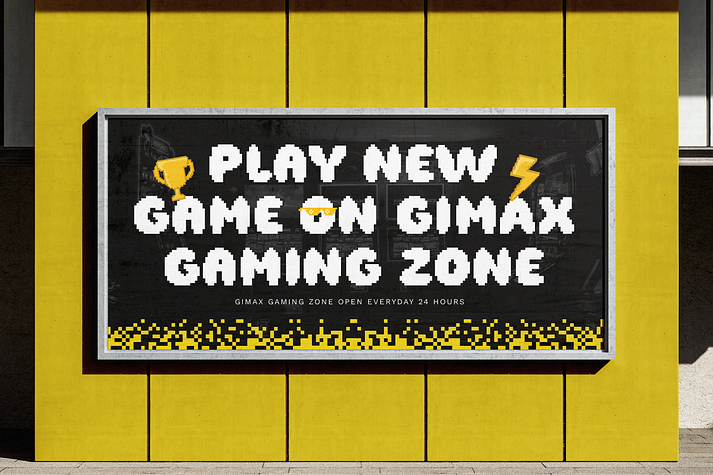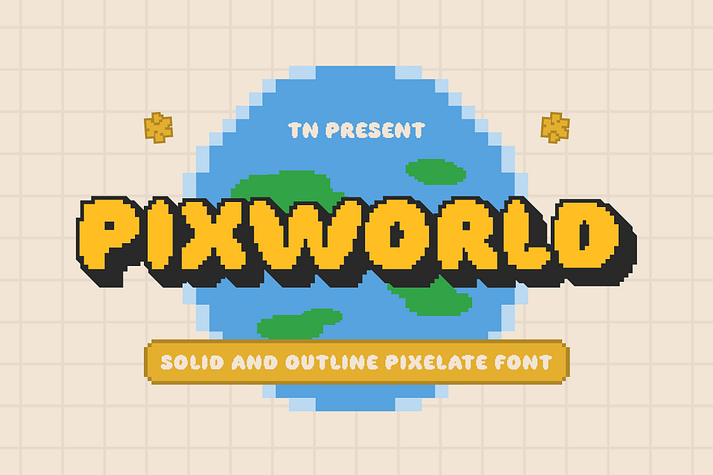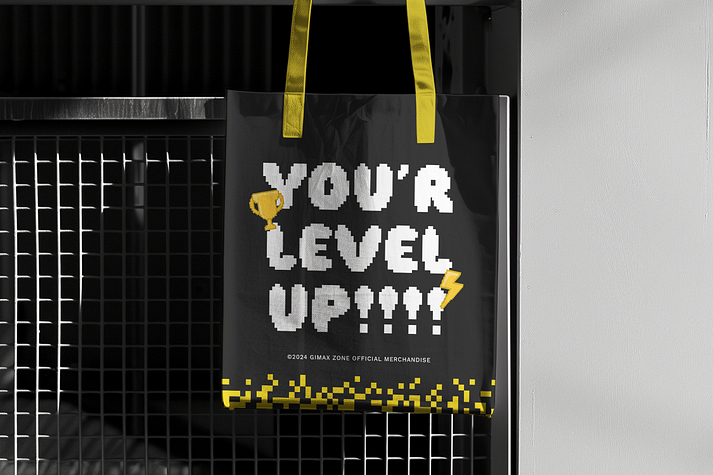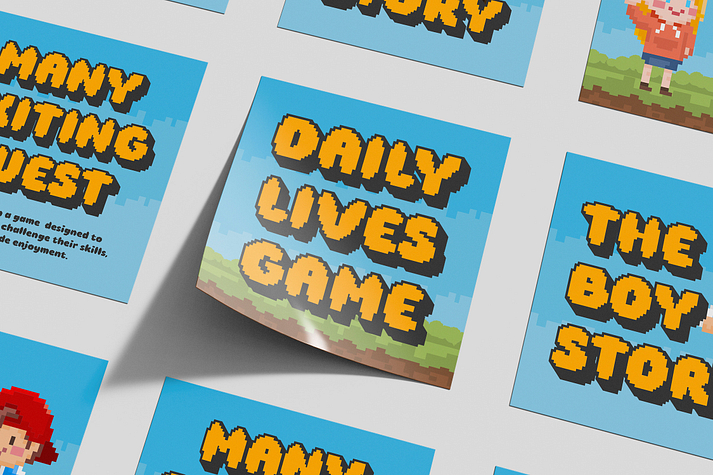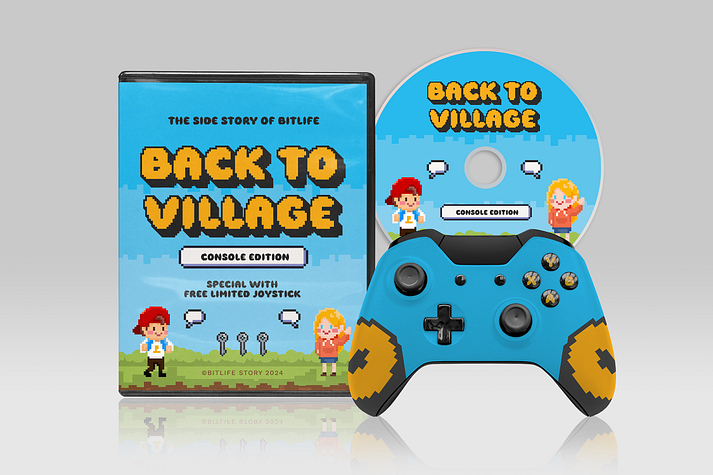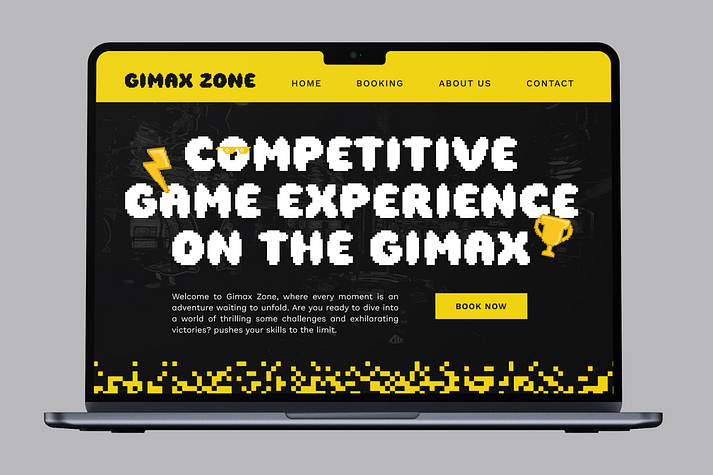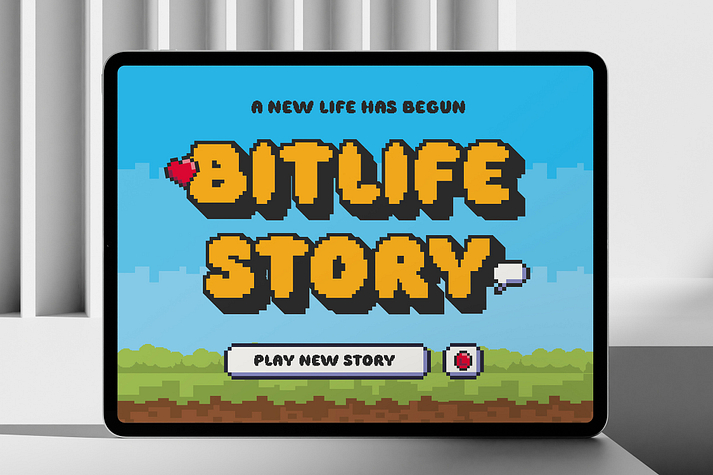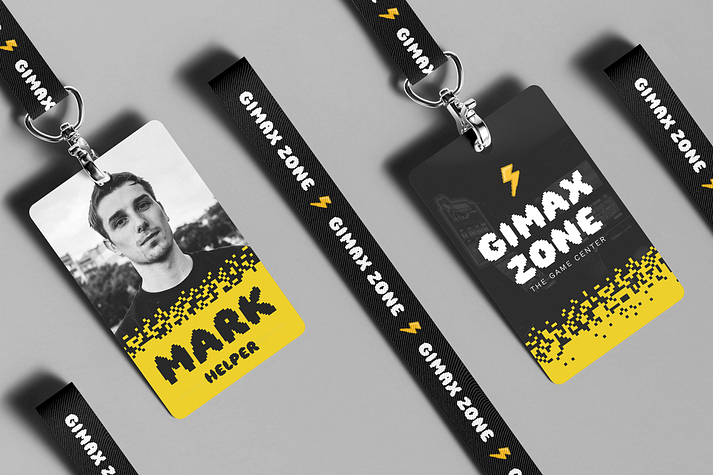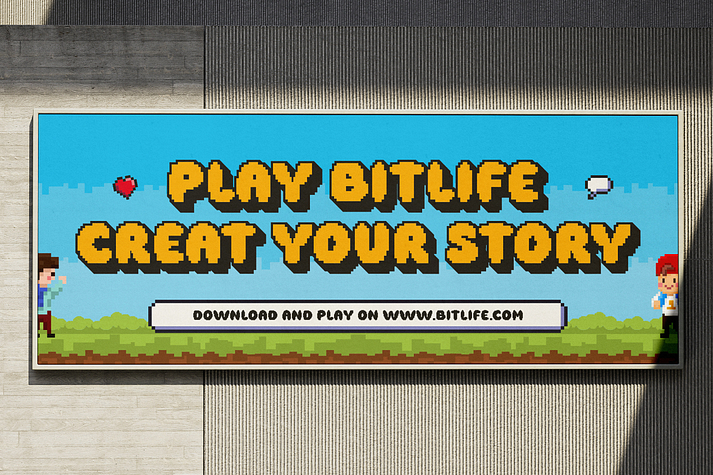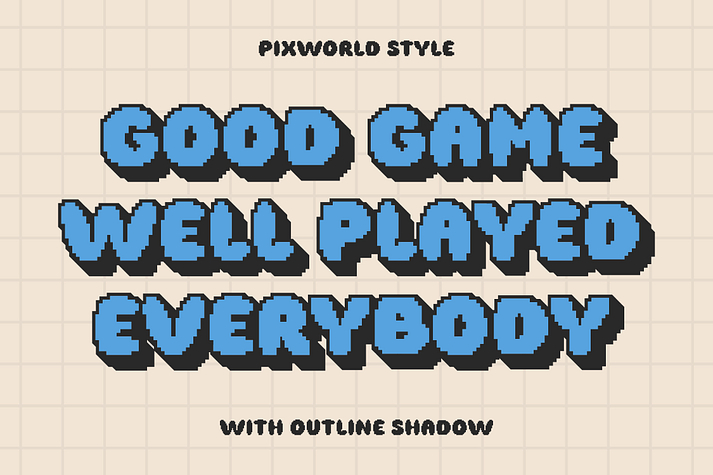
Pixworld
Pixworld is a display sans font family. This typeface has two styles and was published by Typia Nesia.
Pixworld - Solid & Outline Pixelate Font - Modern Bold Gaming Digital Display Font.
Pixworld offers a unique blend of solidity and outline in its pixelated design, making it stand out in the realm of digital typography. This font is versatile and suitable for a wide range of applications, including branding and logo design, packaging design, merchandise design, digital interfaces, gaming, posters, banners, video game design, educational materials, and any project where a bold and attention-grabbing typeface is needed. Comes with a complete set of uppercase and lowercase letters, punctuation marks, numerals, alternates, and comprehensive multilingual support, Pixworld ensuring its usability across different languages and platforms. Crafted with expertise in digital type design, Pixworld combines the precision of pixelation with the aesthetic appeal of outline typography, offering a fresh and modern approach to font design.